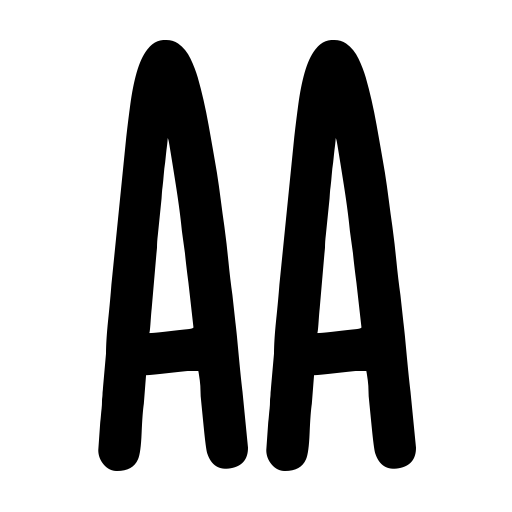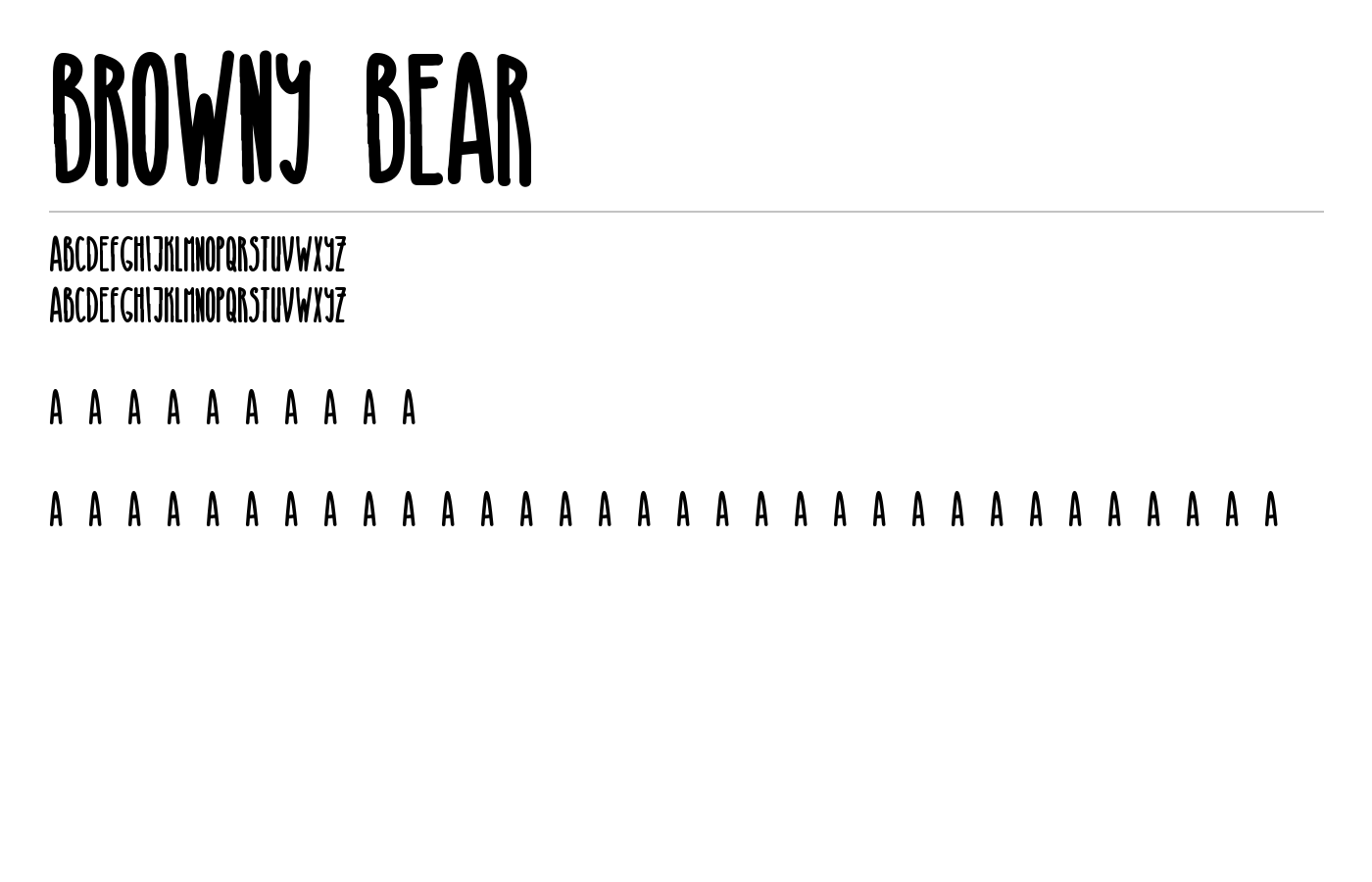
Browny Bear is a playful, tall, and narrow sans serif font with a hand-drawn feel that brings a sense of whimsy and charm. Its irregular strokes and condensed letterforms make it ideal for fun, casual designs like children's books, posters, and branding that seeks an approachable, friendly vibe. This font works best in headlines and titles where its unique personality can shine.
Browny Bear Font